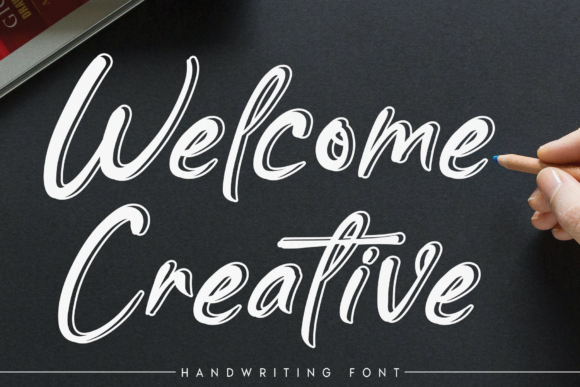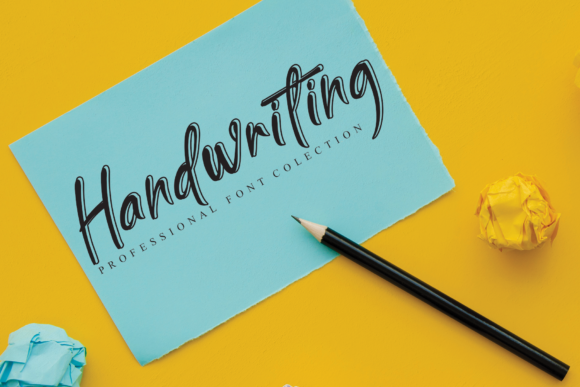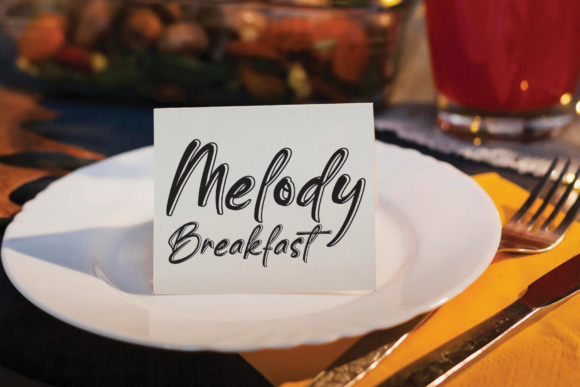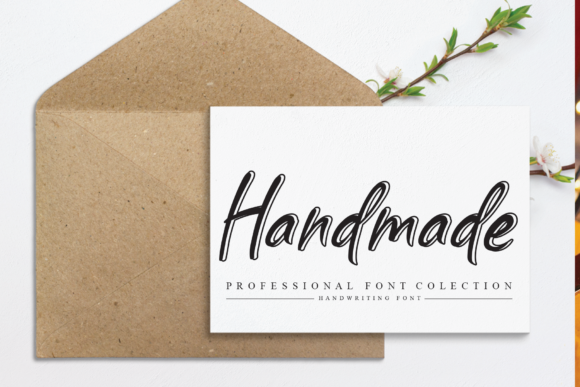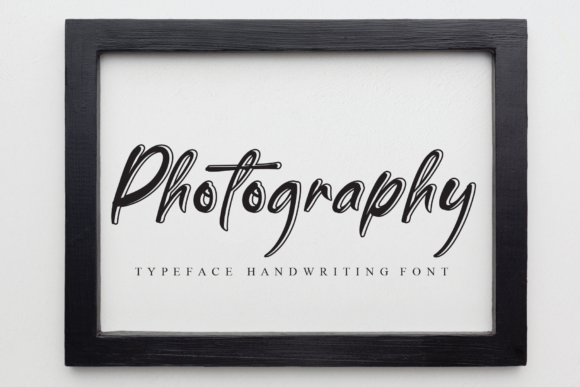
Welcome Creative
About Welcome Creative Font
Welcome Creative is a bold and beautiful handwritten font, created with the help of a lovely brush pen. It has a casual, yet elegant touch. It can be used for various purposes such as logos, wedding invitations, headings, t-shirts, letterhead, signage, labels, news, posters, badges and so much more.